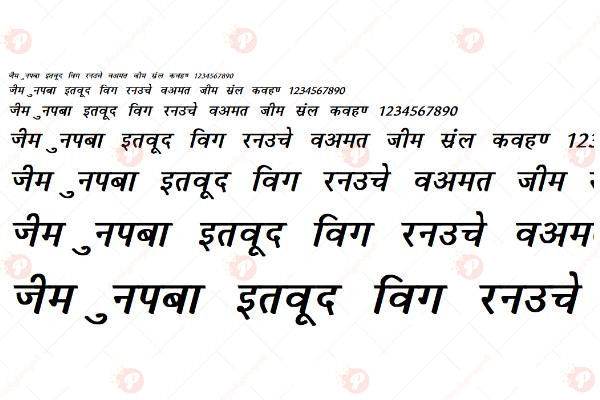
The Krishna Bold Italic Font is a devotional and artistic typeface that combines the strength of bold strokes with the elegance of italic styling. This makes it ideal for creating dynamic and spiritual designs such as festival posters, religious invitations, cultural banners, devotional books, packaging, and social media graphics.
With its bold and slanted letterforms, Krishna Bold Italic gives your text both power and movement, ensuring attention and cultural depth in both digital and print media.
Style: Bold Italic / Devotional / Traditional Typeface
Perfect for: Festival Posters, Invitations, Religious Banners, Cultural Branding & Book Covers
| Optimum Size | Large (Display / Poster) |